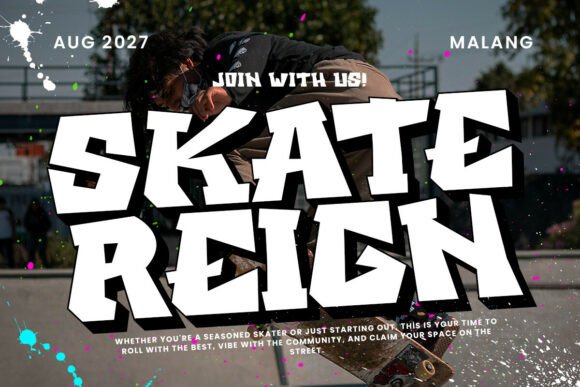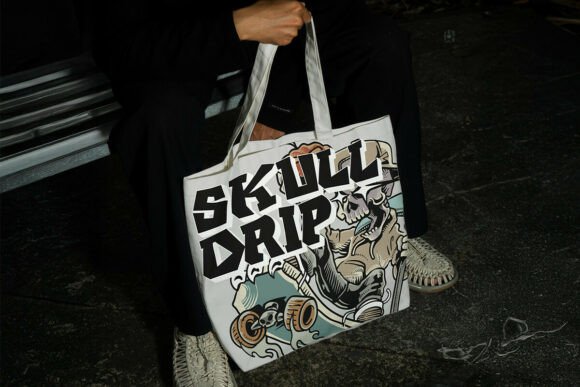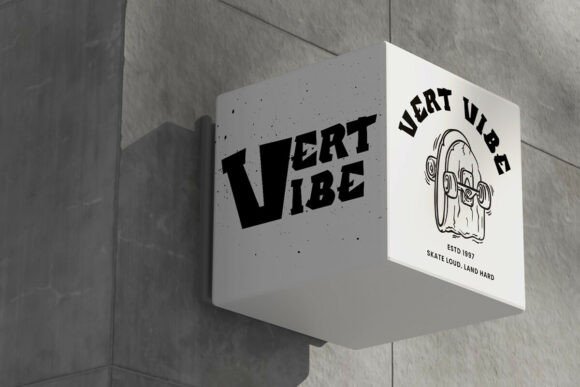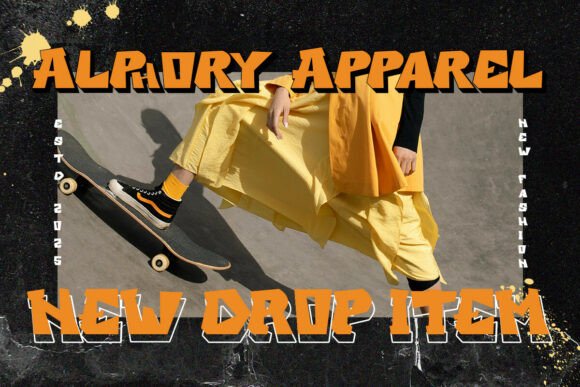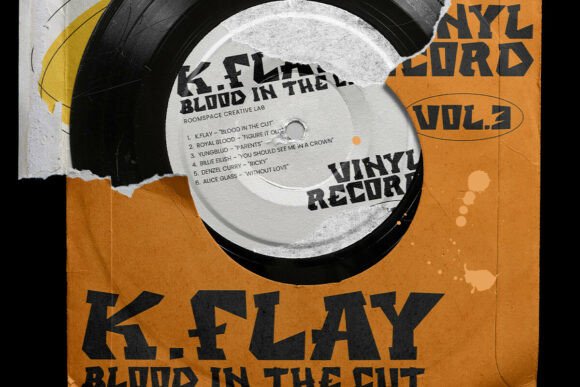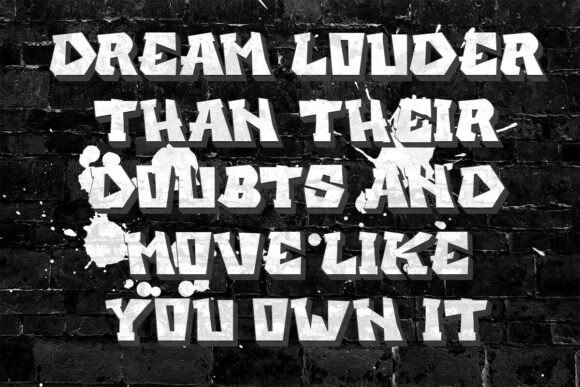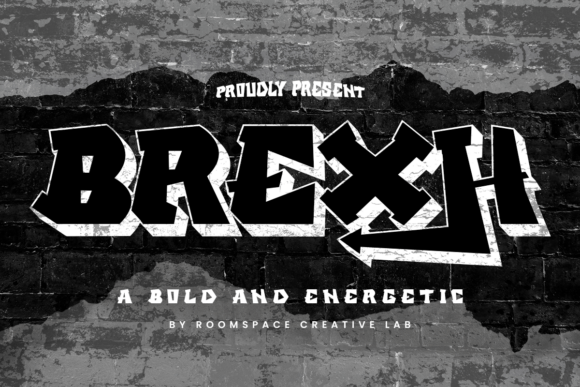
Unleash Your Creativity with Brexh Regular Font: The Ultimate Graffiti-Inspired Display Font
Are you tired of using the same old fonts for your designs? Do you want to add a touch of raw energy and rebelliousness to your projects? Look no further than Brexh Regular Font, a bold graffiti-inspired display font that’s perfect for urban, loud, and fearless designs. In this article, we’ll dive into the features and benefits of Brexh font and explore how it can elevate your design game.
What is Brexh Font?
Brexh is a bold graffiti-inspired display font that fuses blackletter structure with raw, streetwise energy. Designed to stand out, its sharp angles, bold weight, and rebellious edge make it perfect for modern urban design. Whether you’re working on a poster, event branding, music visuals, or bold headlines, Brexh adds punch and personality to your designs.
Key Features of Brexh Font
- Graffiti Marker Influence: Brexh font has a graffiti marker influence that gives every letter impact while staying clean and readable. This unique feature sets it apart from other fonts and makes it perfect for designs that require a bold and edgy look.
- PUA-Encoded: Brexh font is PUA-encoded, allowing effortless access to all glyphs, swashes, and alternate characters. This makes it easy to use and customize, even for designers who are new to font editing.
- Sharp Angles and Bold Weight: Brexh font features sharp angles and a bold weight that give it a rebellious edge. This makes it perfect for designs that require a strong and confident look.
- Blackletter Structure: Brexh font fuses blackletter structure with raw, streetwise energy. This unique combination gives it a distinctive look that’s both modern and edgy.
Who is Brexh Font for?
Brexh font is perfect for designers and crafters who want to add a touch of raw energy and rebelliousness to their projects. It’s ideal for:
- Graphic Designers: Brexh font is perfect for graphic designers who want to create bold and eye-catching designs for posters, flyers, and other marketing materials.
- Music and Event Promoters: Brexh font is ideal for music and event promoters who want to create bold and attention-grabbing headlines for their events.
- Streetwear and Fashion Brands: Brexh font is perfect for streetwear and fashion brands who want to add a touch of edginess to their branding and marketing materials.
How to Use Brexh Font
Using Brexh font is easy. Here are a few tips to get you started:
- Pair it with a neutral font: Pair Brexh font with a neutral font to create contrast and add visual interest to your designs.
- Use it for headlines: Brexh font is perfect for headlines and titles. Use it to add punch and personality to your designs.
- Experiment with colors: Brexh font looks great in bold and bright colors. Experiment with different colors to find the one that works best for your design.
Brexh Regular Font is a bold graffiti-inspired display font that’s perfect for urban, loud, and fearless designs. With its sharp angles, bold weight, and rebellious edge, it’s ideal for designers and crafters who want to add a touch of raw energy and edginess to their projects. Whether you’re working on a poster, event branding, music visuals, or bold headlines, Brexh font is the perfect choice. So why wait? Download Brexh font today and unleash your creativity!